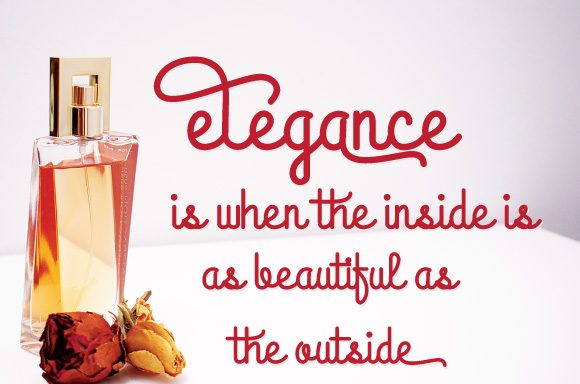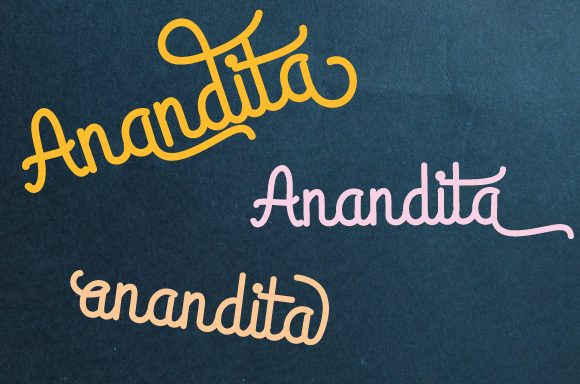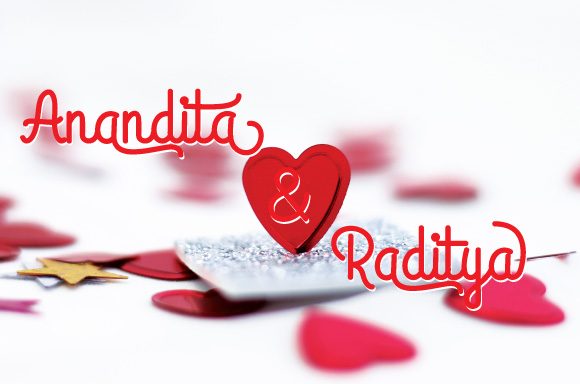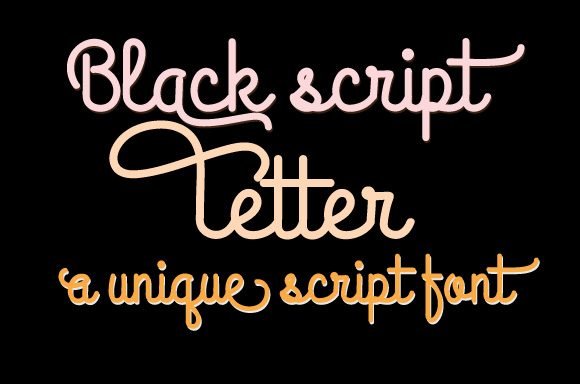
Introduction to Black Script Letter Font
Black Script Letter is a delicate, elegant and flowing handwritten font.
It has beautiful and well balanced characters and as a result, it matches a wide pool of designs Add it to your most creative ideas and notice how it makes them come alive.